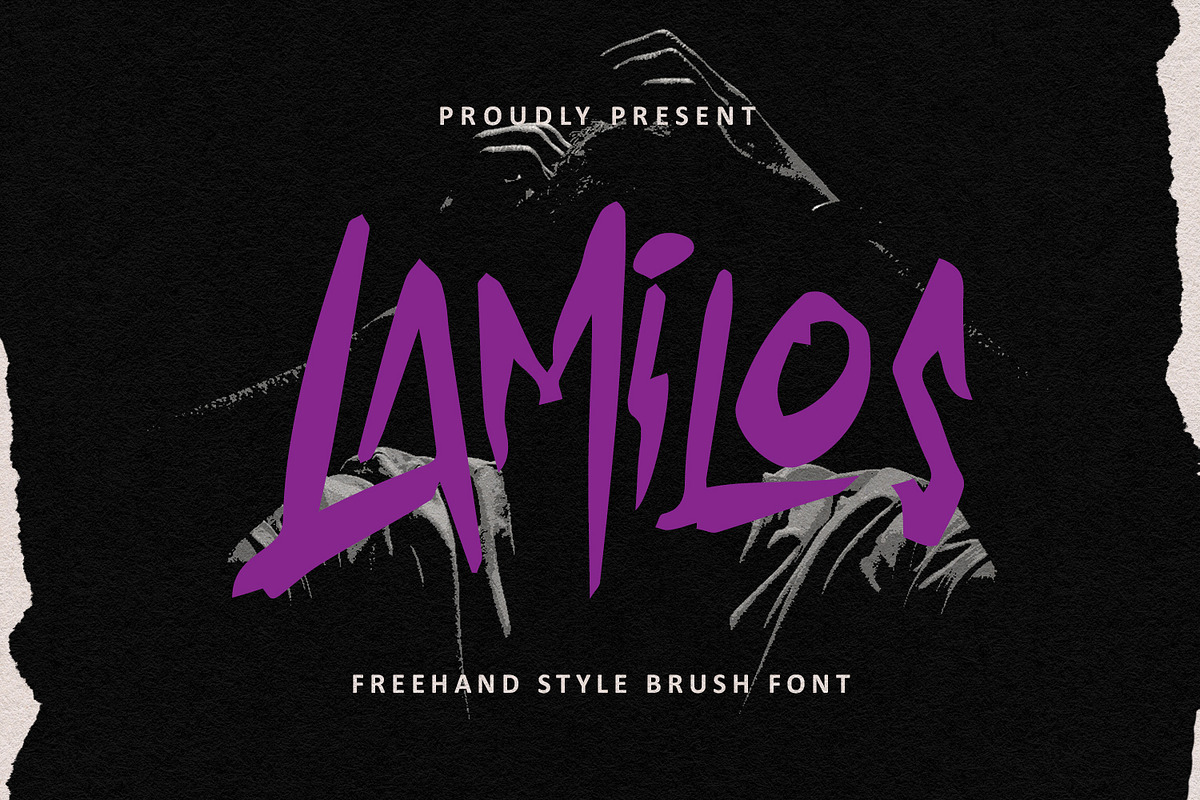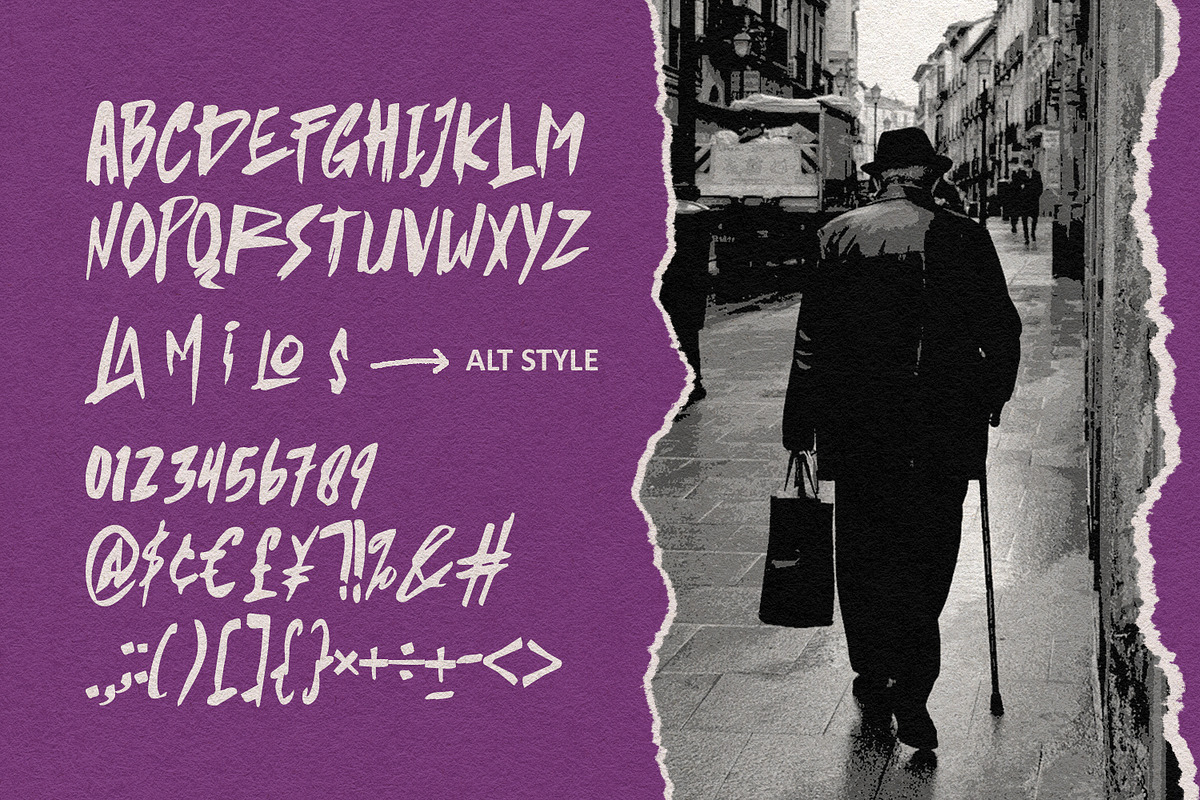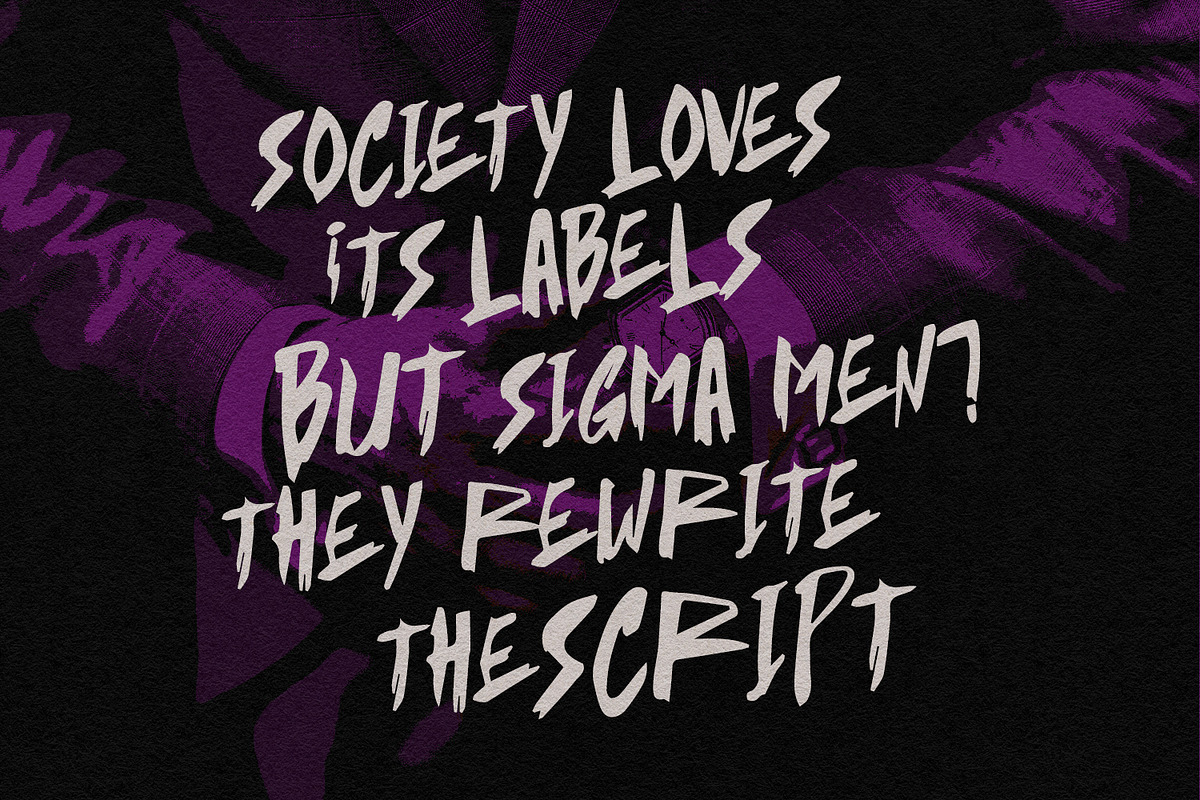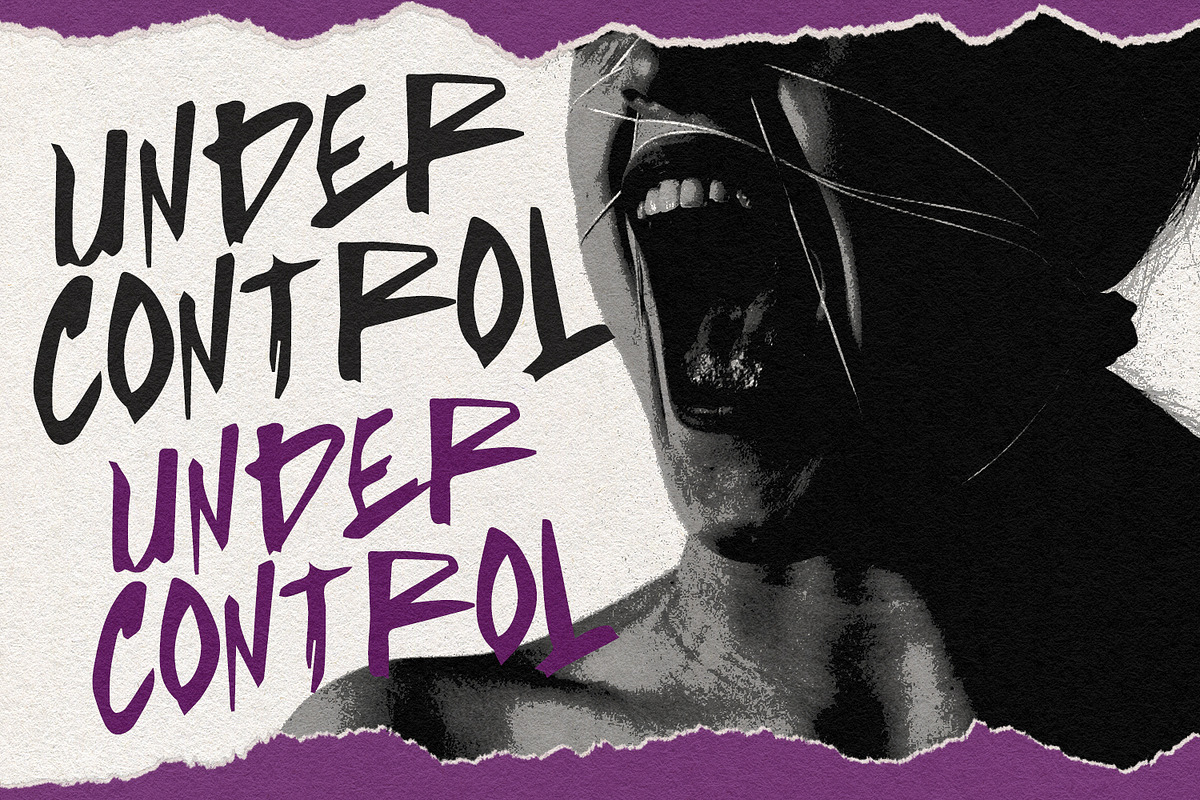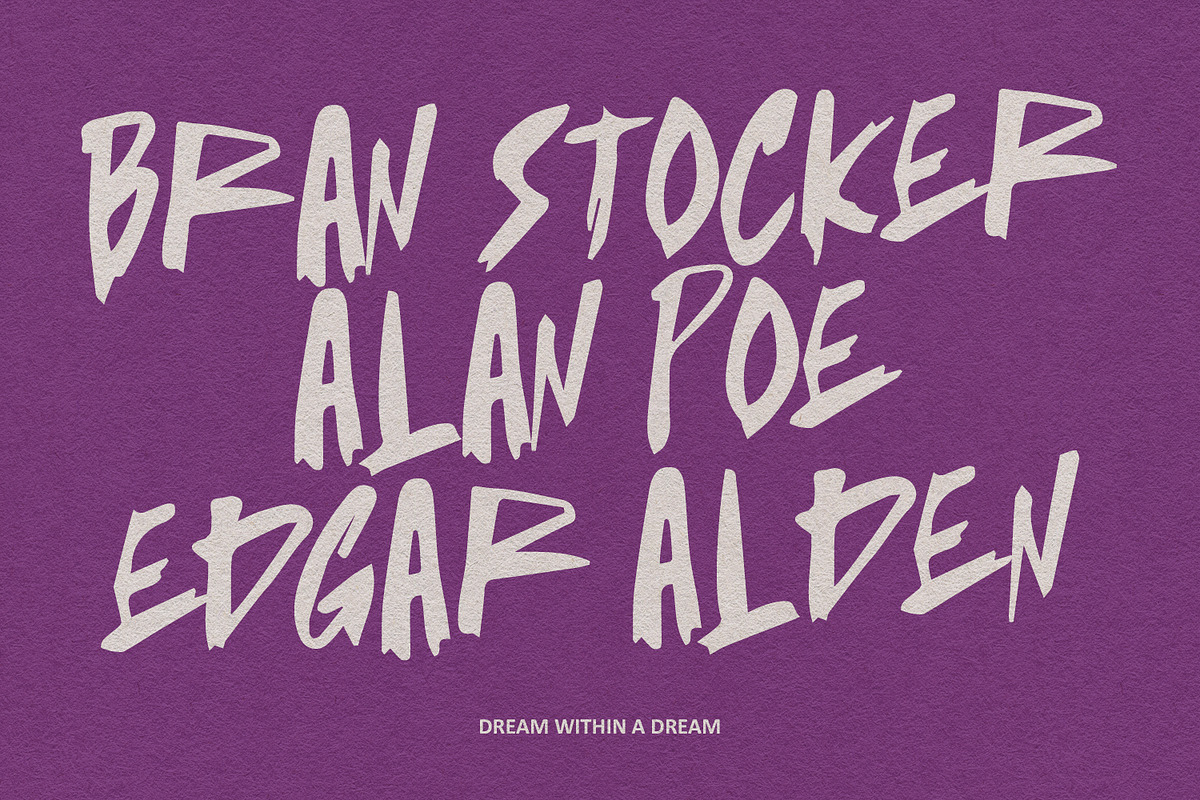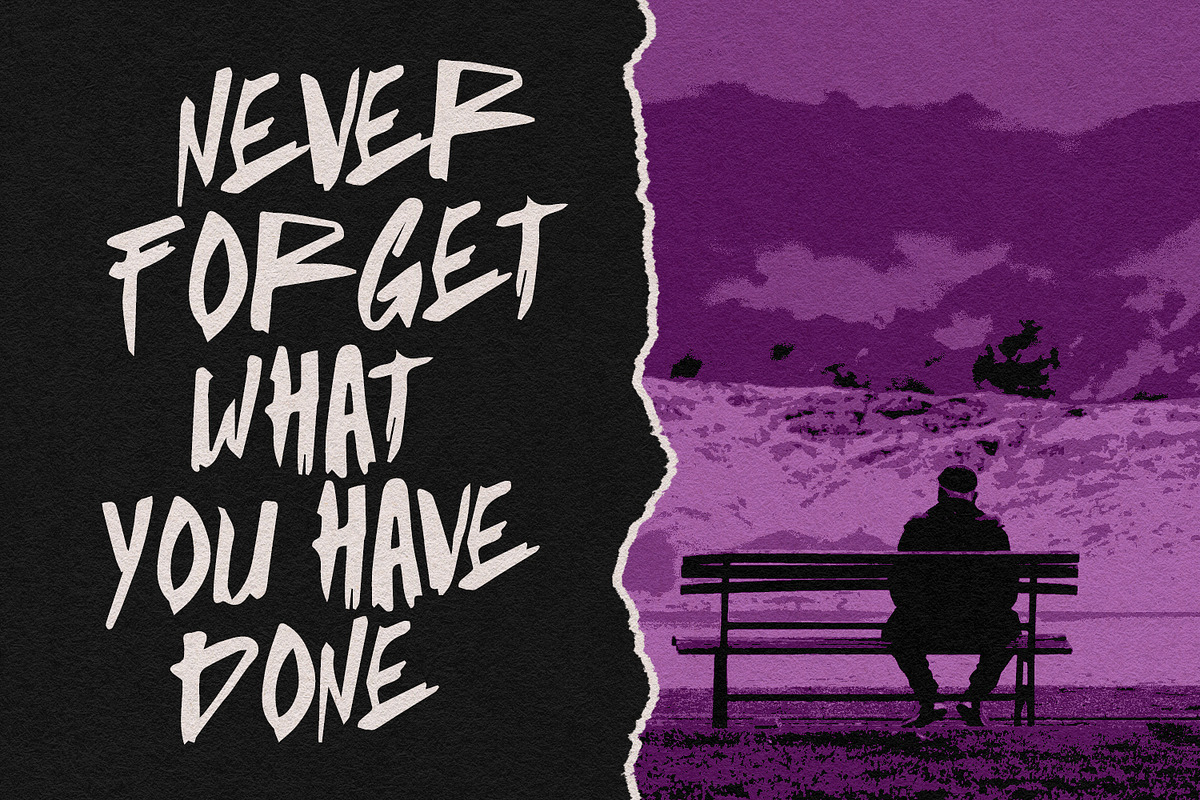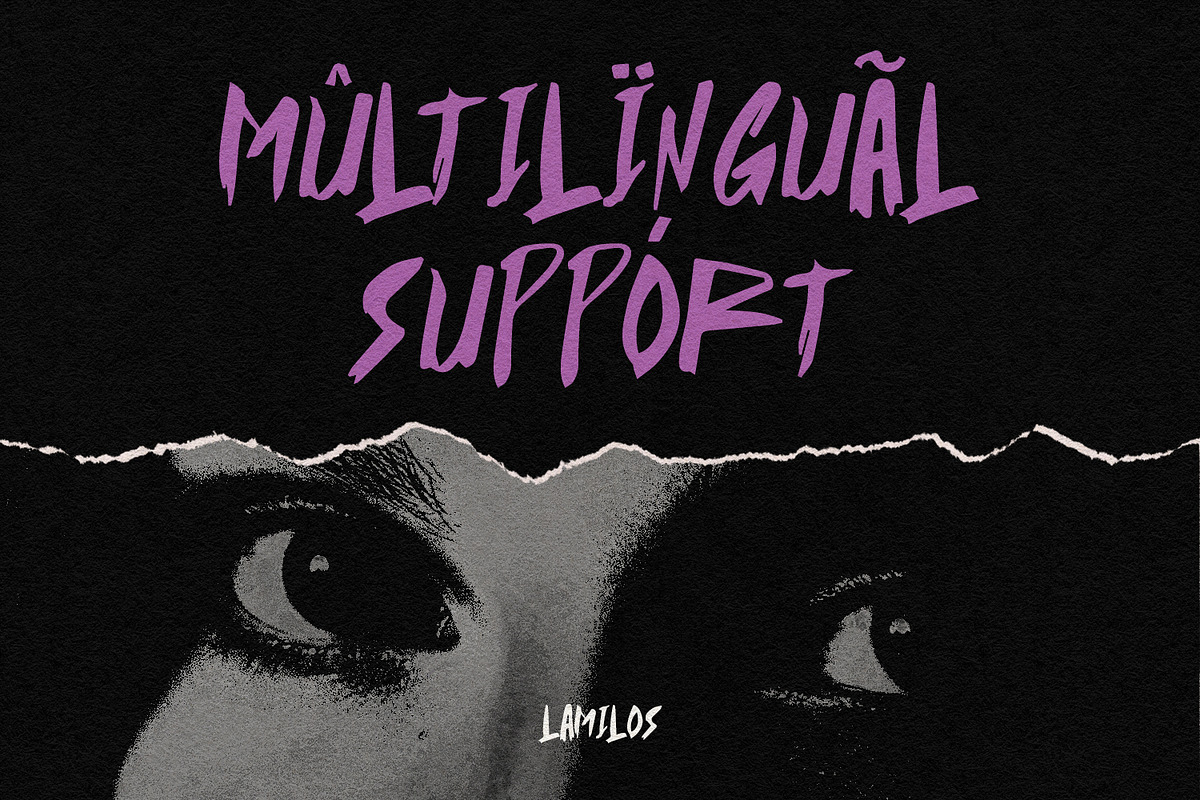
Lamilos Authentic Freehand Style
Lamilos is a authentic brush display font. Bold stroke, fun character with a bit of ligatures and alternates. To give you an extra creative work. Lamilos font support multilingual more than 100+ language. This font is good for logo design, Social media, Movie Titles, Books Titles, a short text even a long text letter and good for your secondary text font with script or serif. Make a stunning work with Lamilos font.